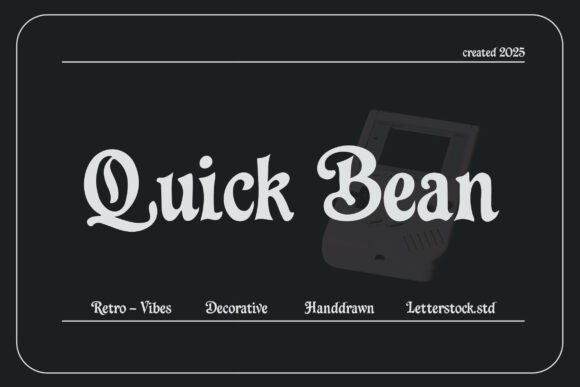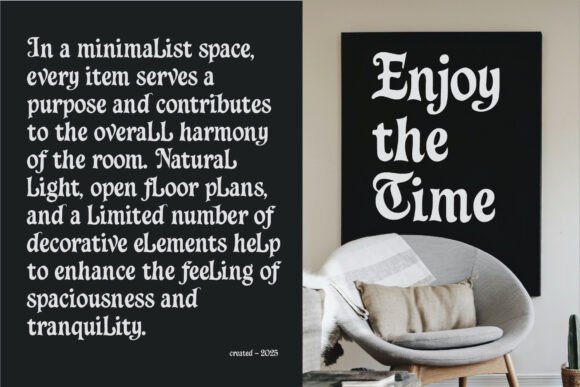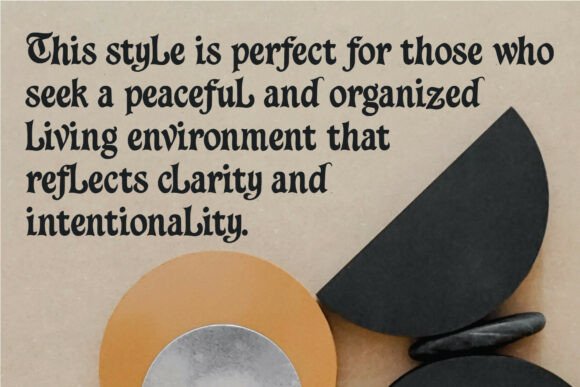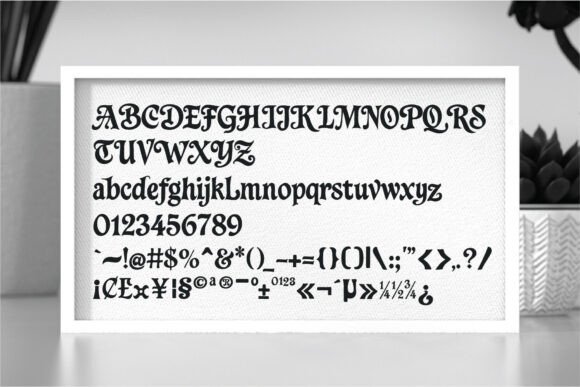
Quick Bean Font: Retro Serif for Bold Branding & Playful Headlines
About the Quick Bean Font
Step up your design game with Quick Bean Font, a font that exudes confidence and style. Quick Bean is a retro-inspired decorative serif font with hand-drawn charm and bold personality. With its whimsical curves and vintage aesthetic, this font is ideal for nostalgic branding, coffee shop logos, posters, and artistic headlines. It blends a playful spirit with old-school flair for a truly unique look.
Quick Bean’s bold, playful nature makes it perfect for projects requiring a vintage yet approachable feel. It excels in headlines, logos, short slogans, and packaging design where its character can shine. Avoid using it for large blocks of body text or UI elements; its decorative style isn’t optimized for readability in extended passages.
Pair Quick Bean with a clean sans-serif like Open Sans for a balanced contrast, or a more geometric sans-serif such as Futura for a modern twist. For a warmer feel, consider pairing it with a script font like Great Vibes, but use it sparingly as an accent.
The font’s overall personality is best described as cheerful and nostalgic, lending itself well to brands focused on food, beverages, children’s products, or vintage-inspired designs. Its retro charm and bold strokes create a strong visual impact ideal for capturing attention.
Quick Bean Font Usage Examples
Quick Bean Font Example